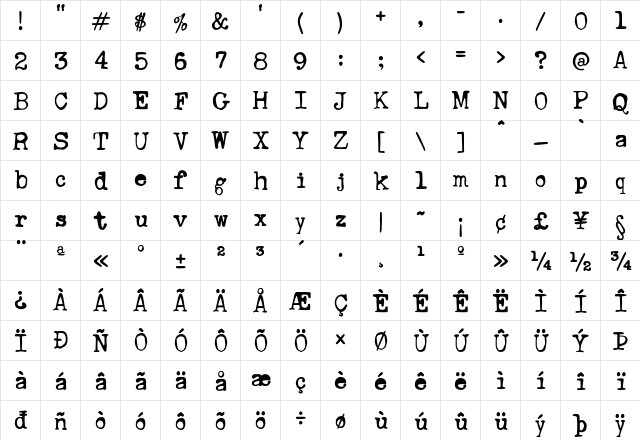
Ana's Rusty Typewriter Regular
| Foundry | Ana Parracho |
| Designer | Ana Parracho |
Design Context for Ana's Rusty Typewriter Typeface
Ana's Rusty Typewriter uses fixed-width spacing throughout, giving it the structured, systematic character associated with coding environments and technical documentation.
A natural fit for code editors, technical documentation, developer-focused branding, and terminal-inspired UI.
Pro Tip: Pair Ana's Rusty Typewriter with a proportional sans for UI contexts where code-style labels and regular body copy need to coexist.